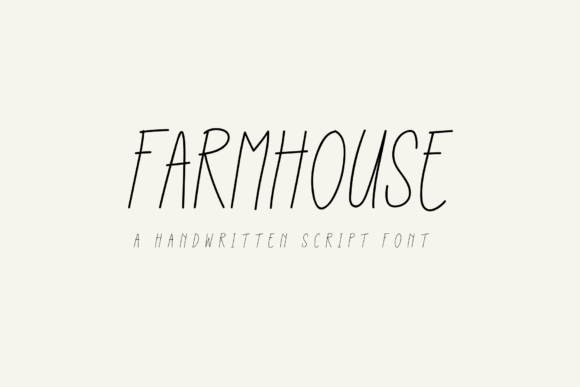
Getting Creative with a Personal Touch
Have you ever been working on a project and suddenly felt the urge to add a personal touch? Maybe you’re designing a logo for a client, creating a digital planner for yourself, or crafting a special message for a loved one. Whatever the case, you know that the right font can make all the difference in conveying your message and connecting with your audience.
That’s where the Farmhouse Font comes in – a beautiful, handwritten font that’s perfect for adding a touch of warmth and personality to any project. With its rustic charm and elegant flair, the Farmhouse Font is ideal for digital notes, planners, logos, and more. Whether you’re a seasoned designer or a creative enthusiast, this font is a valuable addition to your toolkit, allowing you to bring your unique vision to life.
Farmhouse Font Key Features
- Font Family: Farmhouse Font is a handwritten font family designed to evoke a rustic, countryside feel.
- Character Count: The font family includes over 800 glyphs, including uppercase and lowercase letters, numerals, punctuation, and special characters.
- Unique Characteristics: The Farmhouse Font features a distinctive, hand-written style with subtle imperfections and variations, giving it a unique and authentic feel.
Farmhouse Font Review
At first glance, Farmhouse Font is an adorable font that screams rustic charm. ✨ I love how it captures the essence of country living with its hand-written feel and elegant curves. It’s perfect for those looking to create a cozy, homespun atmosphere in their designs.
The font works well in various contexts, including:
- Restaurant and cafe branding: Farmhouse Font would be a great choice for a country-themed eatery or a quaint coffee shop.
- Home decor and furniture labels: Its rustic charm would complement any farmhouse-style furniture or decor.
- Wedding invitations and stationery: Farmhouse Font’s elegant, hand-written feel would make it a beautiful choice for wedding invitations and other stationery.
- Legibility: In smaller sizes, Farmhouse Font can become difficult to read, making it less suitable for body text.
- Limited language support: Farmhouse Font may not support all languages, which could be a limitation for international designs.
Overall, Farmhouse Font is a lovely addition to any designer’s toolkit, but it’s essential to use it thoughtfully and in the right context. With its charming, rustic feel, it’s perfect for creating cozy, homespun designs that evoke a sense of warmth and welcoming.
Getting the Most Out of Farmhouse Font
To get the most out of Farmhouse Font, use it for designs that require a rustic or vintage feel, such as:
- Country-themed invitations or announcements
- Rustic signage or labels
- Vintage-inspired social media graphics
Remember to pair Farmhouse Font with other fonts and design elements to create a cohesive and visually appealing design.
Q: Is Farmhouse Font available in different weights and styles?
Yes, Farmhouse Font is available in several weights and styles, including light, regular, bold, and italic. You can use these different weights and styles to create visual hierarchy and emphasis in your design. For example, you can use the light weight for body text and the bold weight for headings.